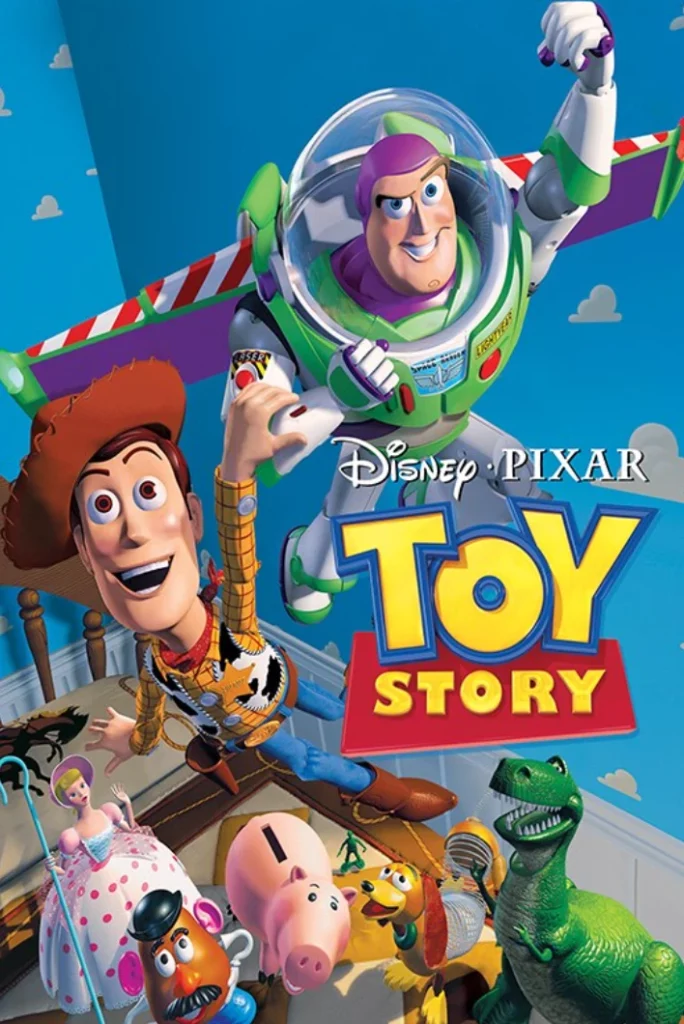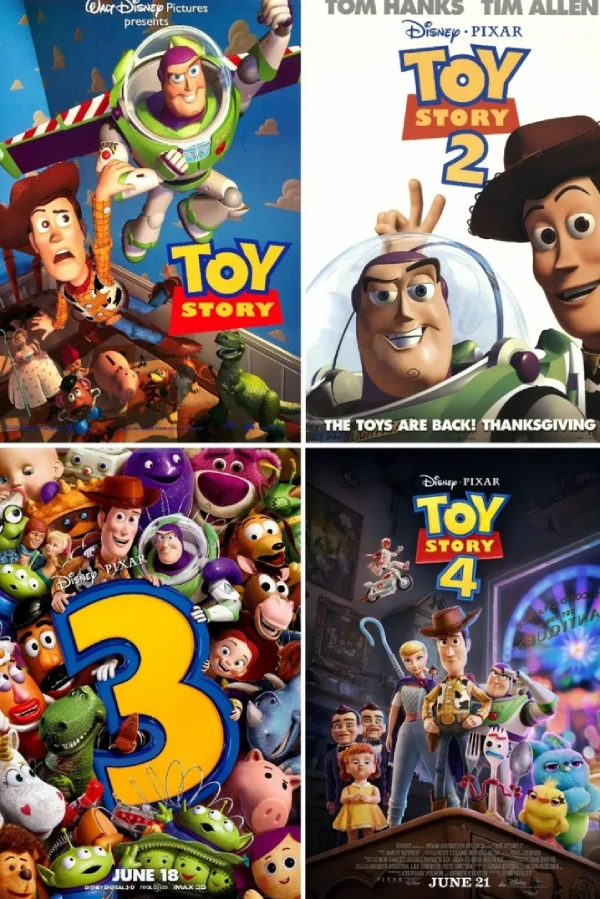
Toy Story Font
The Toy Story font is closely associated with the 1995 American computer-animated film “Toy Story,” produced by Pixar and released by Walt Disney Pictures.
The film’s success spawned three sequels: Toy Story 2 in 1999, Toy Story 3 in 2010, and Toy Story 4 in 2019. All four films utilize the same iconic Toy Story logo.
The Toy Story logo is instantly recognizable to fans of all ages, featuring two distinct lettering styles. The word “Toy” is rendered in a custom comic font, with no official font available. However, several similar fonts exist, including:
Agent Red Font (Free for Personal Use)
Agenet Red Font has similarity to the Toy word style in Toy Story movie logo
Agent Orange Font (Free for Personal Use)
The Agenet Orange font is similar to the Toy Story movie logo word Toy
Peace Sans font (Free for Personal Use)
Peace Sans font has similarity to the Toy Story Movie Logo word Toy
Gill Sans Ultra Bold
The word “Story,” on the other hand, is written in the Gill Sans Ultra Bold font.
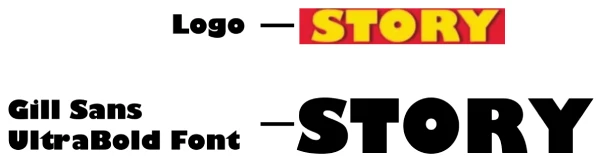
Toy Story Font Similar To the Story word is Gill Sans Ultrabold
Trumania EEN Font
A similar font called Trumania EEN Font (Free for Personal Use) is also available.
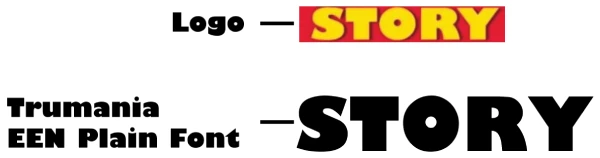
Toy Story Font Similar To the Story word is Trumania EEN
Is there any font similar to Toy Story Font in Google Fonts?
Ans: Passion One is slightly similar to Toy Story Font in google fonts.
The Toy Story font is an integral part of the franchise’s identity, instantly recognizable to fans worldwide. Its playful and dynamic style perfectly captures the spirit of the films, and its use across all four Toy Story movies has solidified its place in pop culture history.